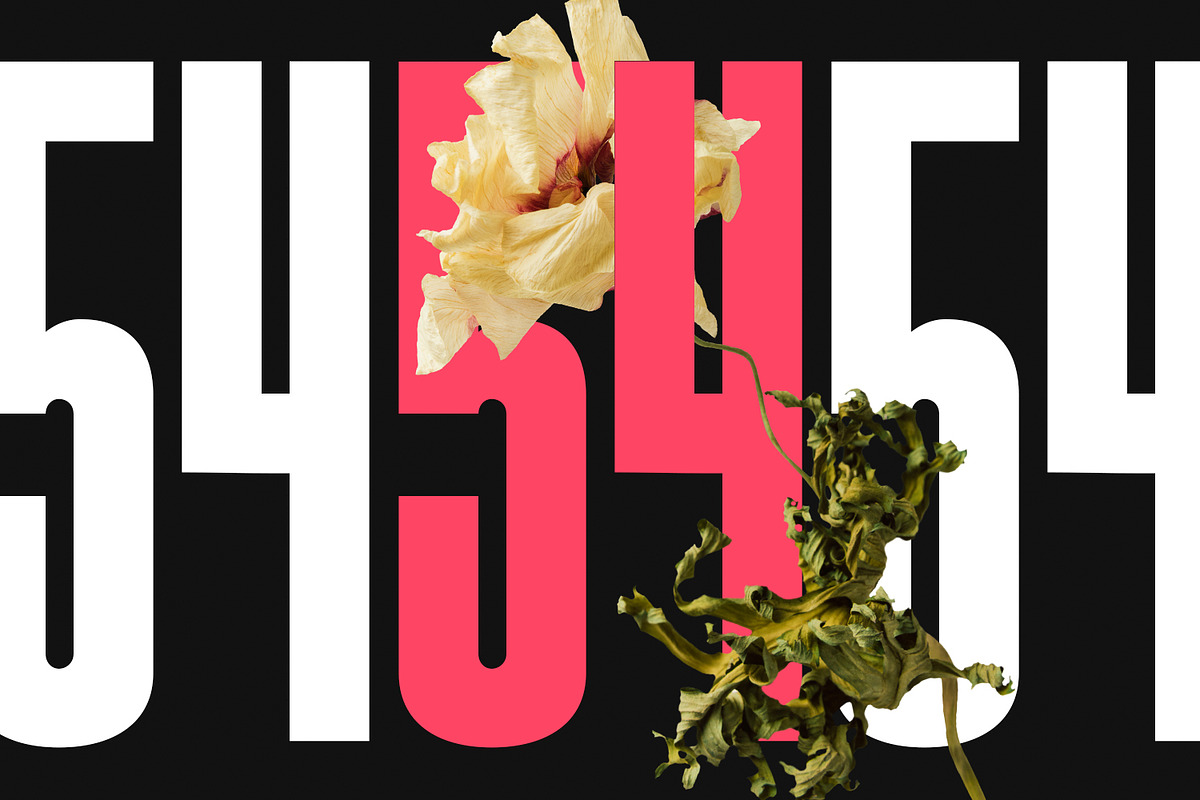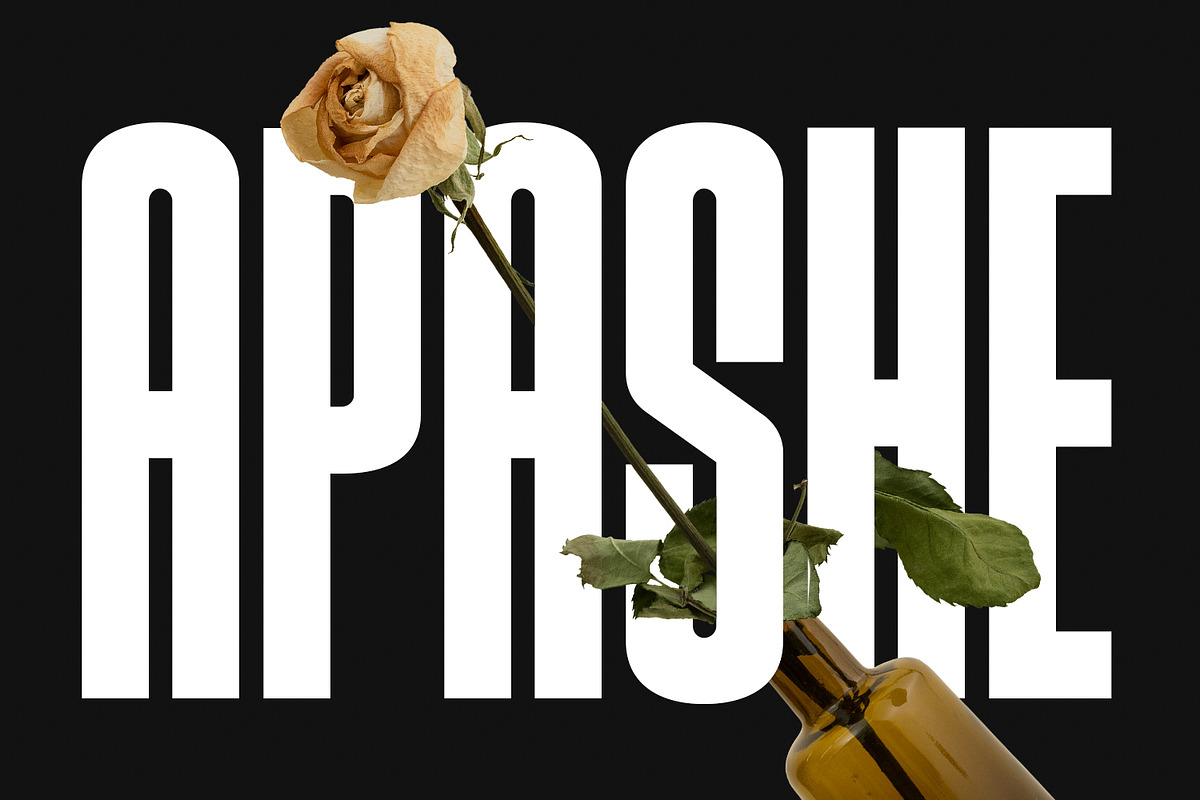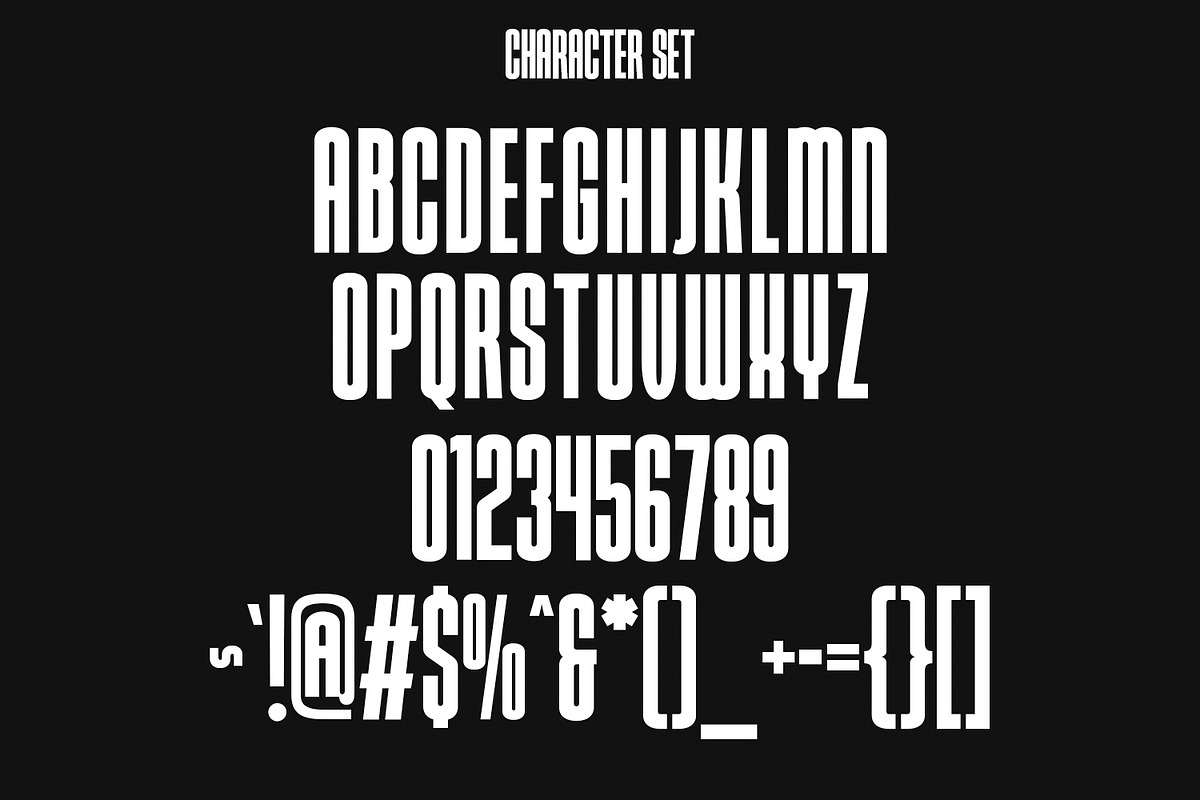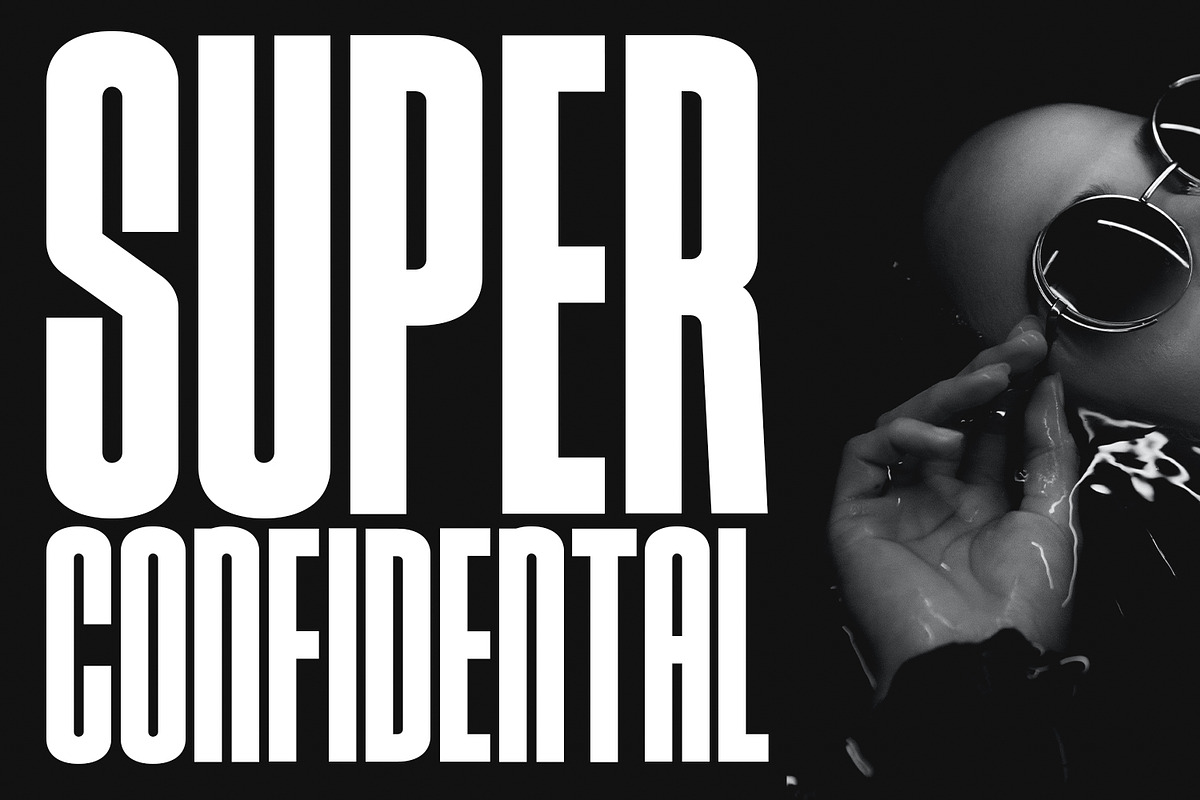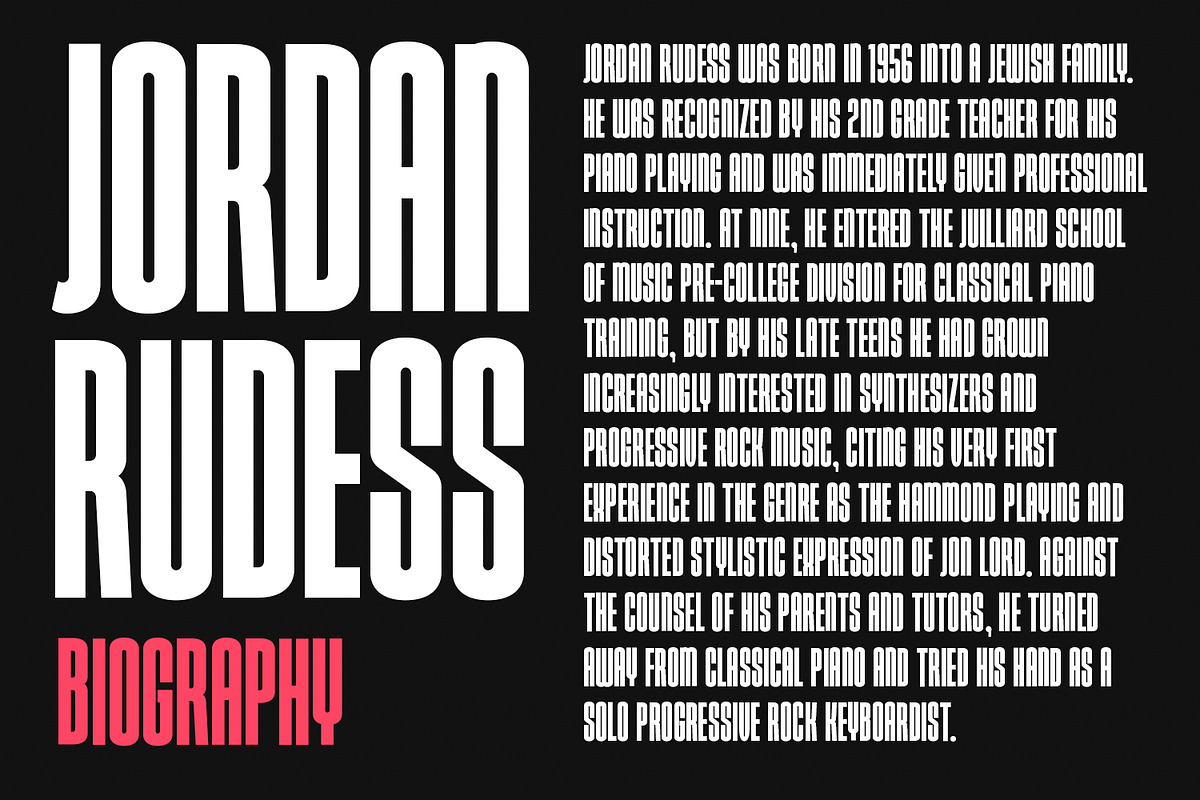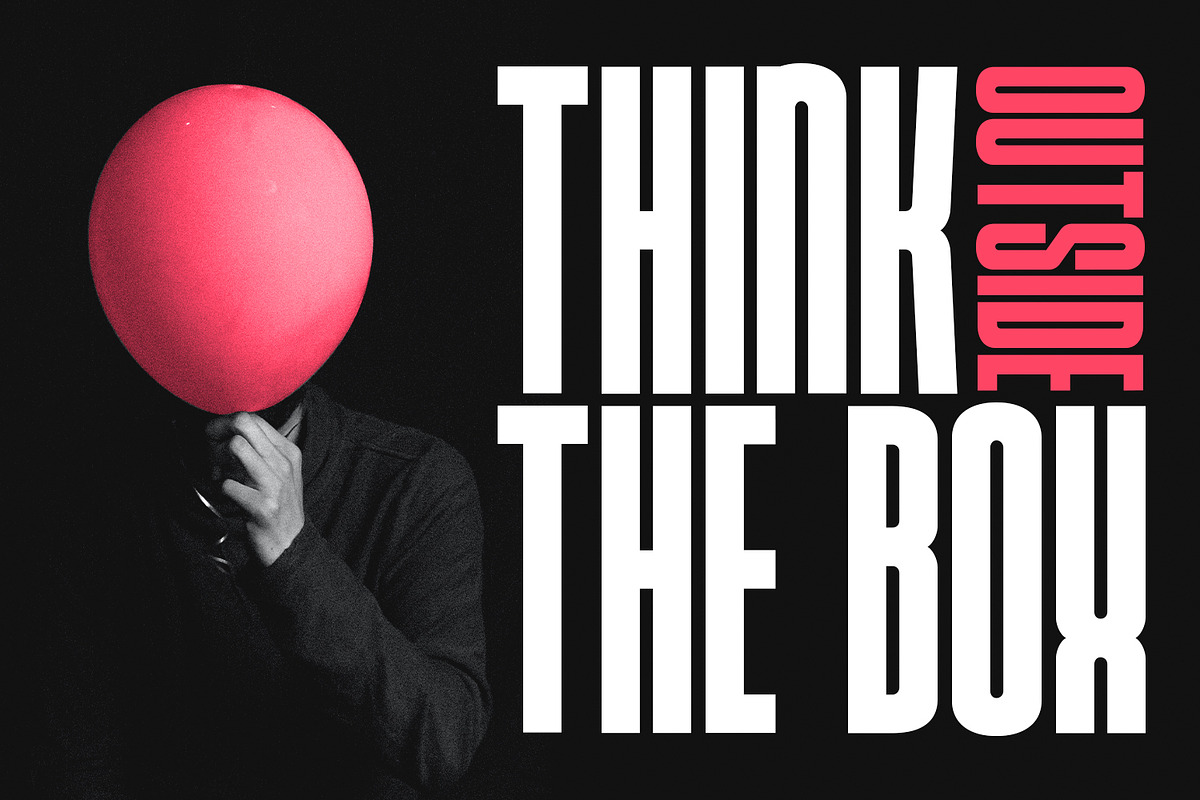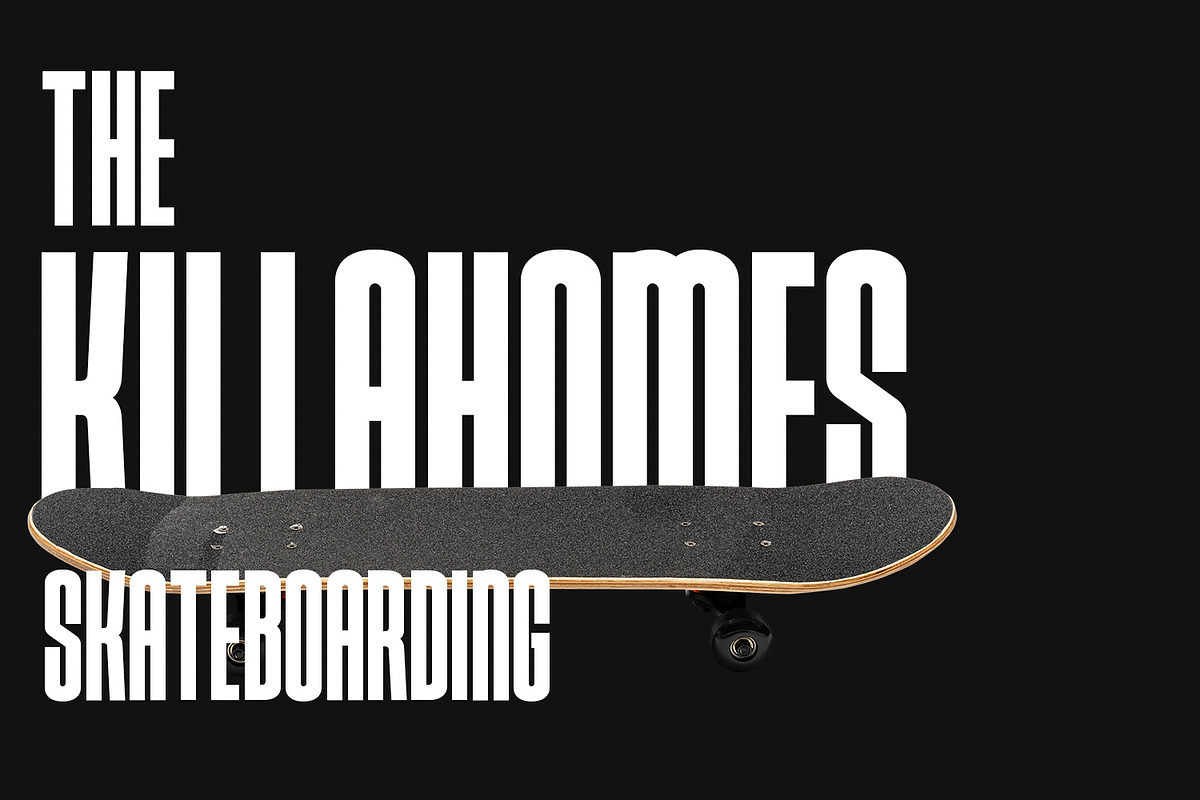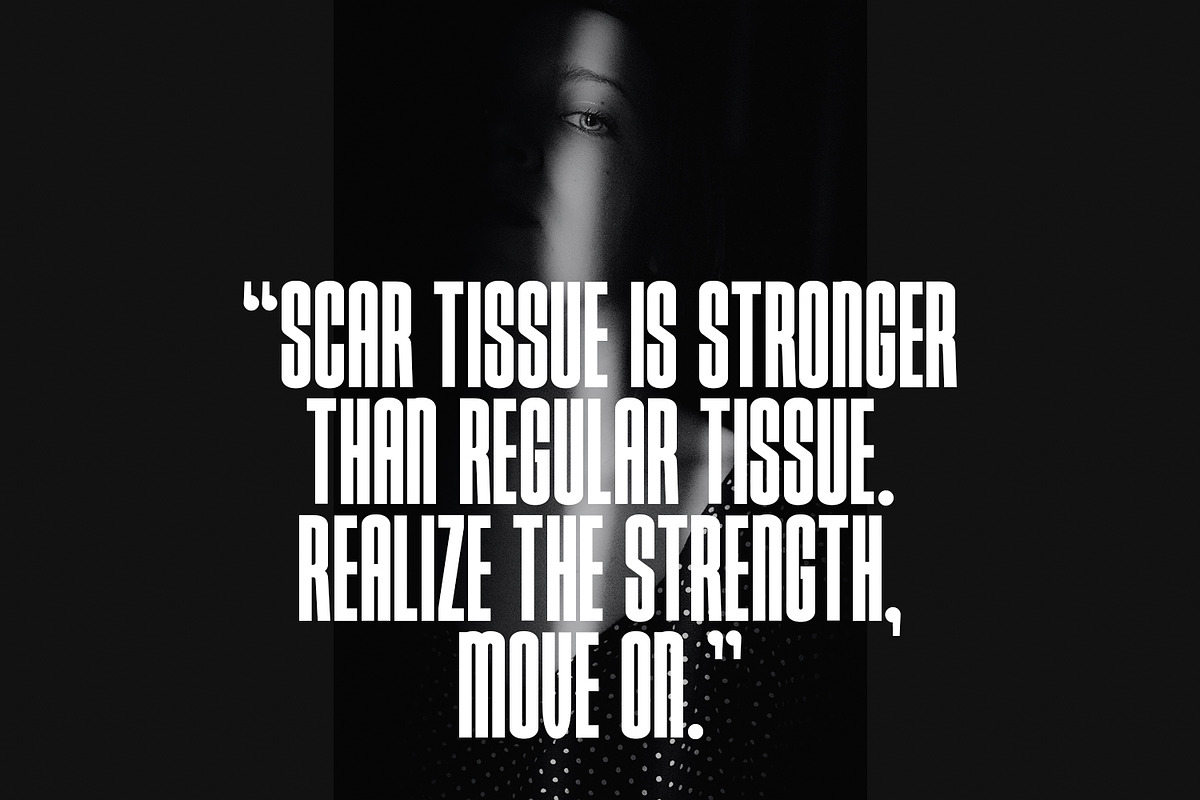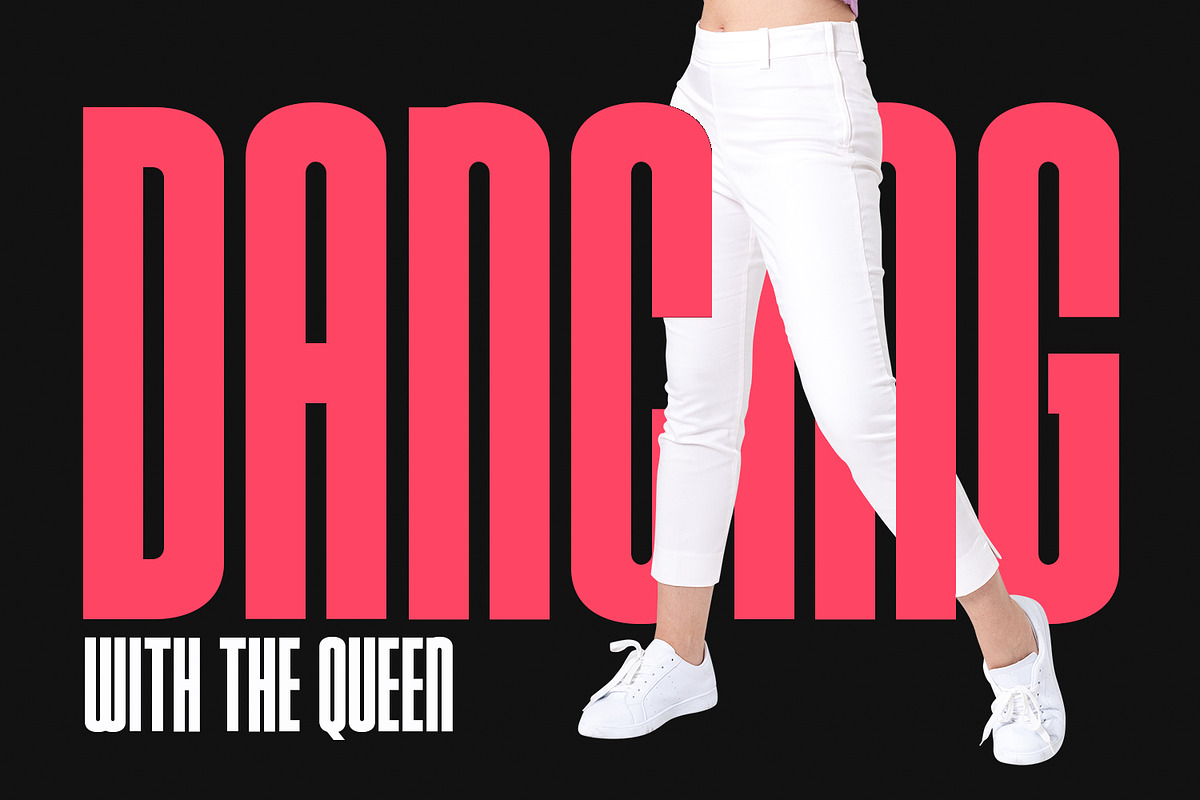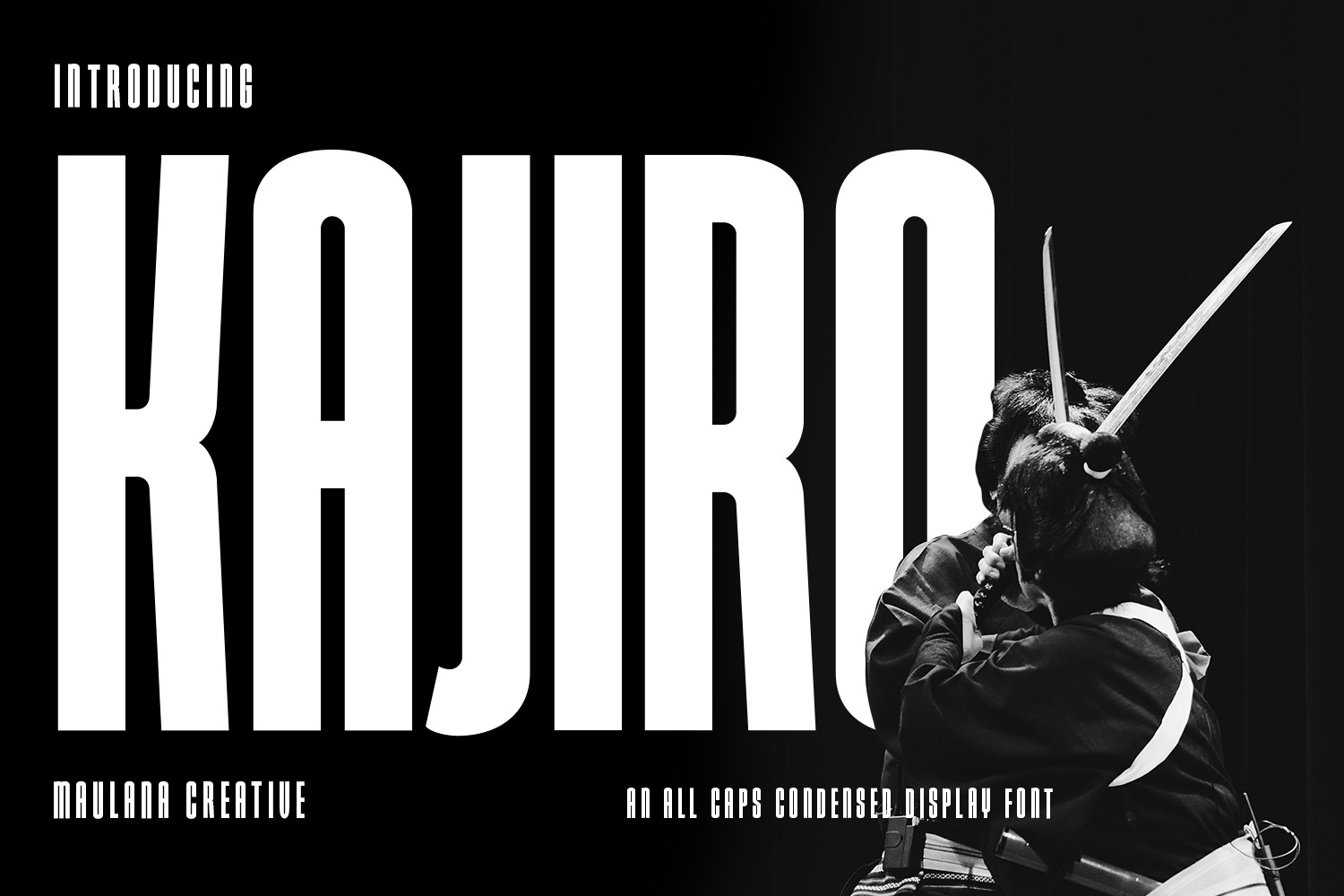
Kajiro Sans Condensed Display Font
Kajiro is a fancy modern condensed all Caps sans serif font. With bold tall and sharp stroke, fun character with a bit of ligatures and alternates. To give you an extra creative work. Kajiro font support multilingual more than 100+ language. This font is good for logo design, Social media, Movie Titles, Books Titles, a short text even a long text letter and good for your secondary text font with sans or serif. Make a stunning work with Kajiro font.